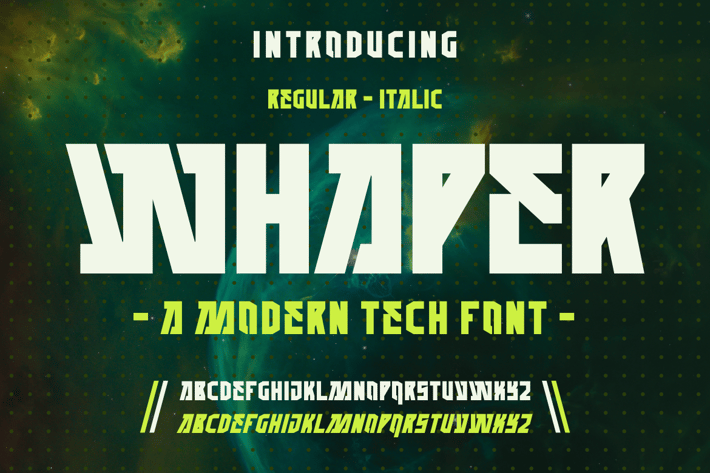
WHAPER FONT
Introducing our new product WHAPER FONT - Modern Tech Font
WHAPER FONT - Modern Tech Font is a bold and authentic display font. The font is suitable for any branding project like logo, t-shirt printing, esport, and many more. outstanding in a wide range of contexts.